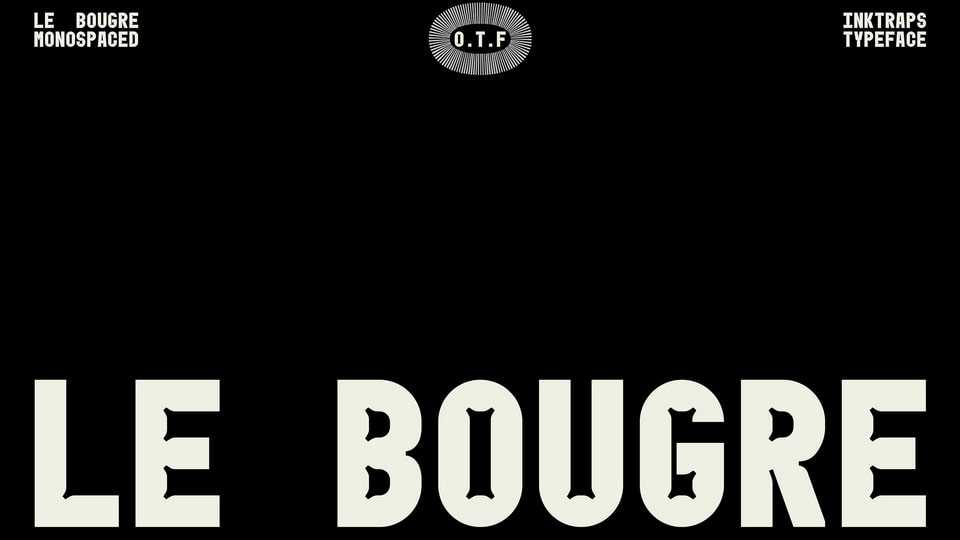
Download Le Bougre font, a bold geometric monospaced typeface with decorative ink traps. With its eye-catching and unique look Le Bougre font works best in large sizes for posters, magazine and website headlines, as well as packaging.
Designer: Max Valcheux